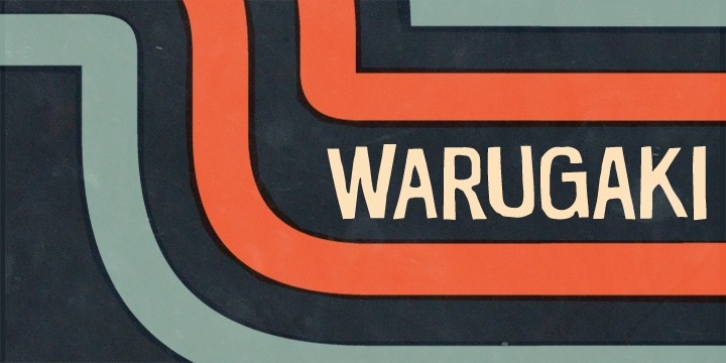
Publisher: Typodermic
Warugaki was made in the style of hand-painted mid 20th century Japanese graphics. Bunches of custom ligature pairs are included for your pseudorandomization pleasure.